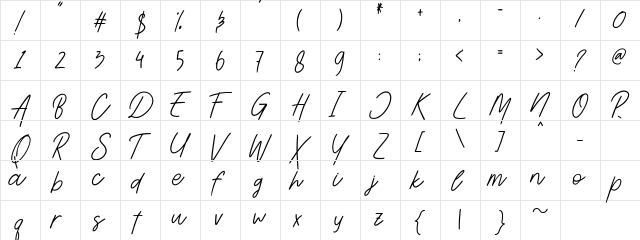
Aesthetik Script Regular
| Foundry | Just Font You |
| Designer | Ian Irwan Wismoyo |
Design Context for Aesthetik Script Typeface
Aesthetik Script brings a calligraphic fluidity to the page — its connecting strokes and expressive curves give it an unmistakably human quality.
Font Pairing: Combine Aesthetik Script with a simple geometric sans for maximum contrast — the tension between flowing curves and clean structure is a classic typographic pairing.
Pro Tip: Use Aesthetik Script for short runs of text — names, titles, or taglines. Extended body copy in script faces tires the eye quickly.